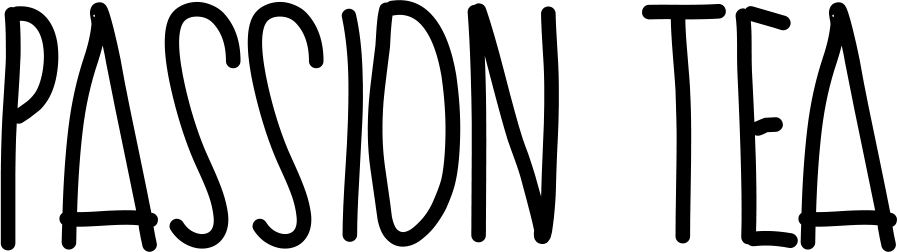
Passion Tea Font
For projects like cartoons, kids’ and comic books, and kindergarten flyers you can use a doodle font and we suggest you Passion Tea. This exceptional font is available with an extensive array of characters including uppercase of the alphabet, numbers, and punctuation marks.